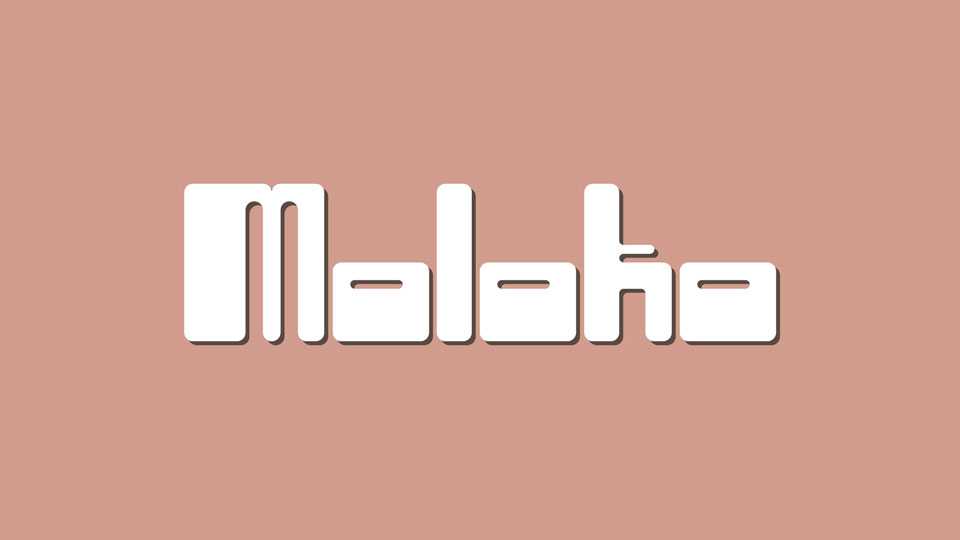
Download Moloko font, a display typeface that transforms retro vibes into a visually striking typographic experience. Moloko font exudes a sense of strength and boldness, making it an ideal choice for projects that demand attention and impact.
Designer: Cris Mayo